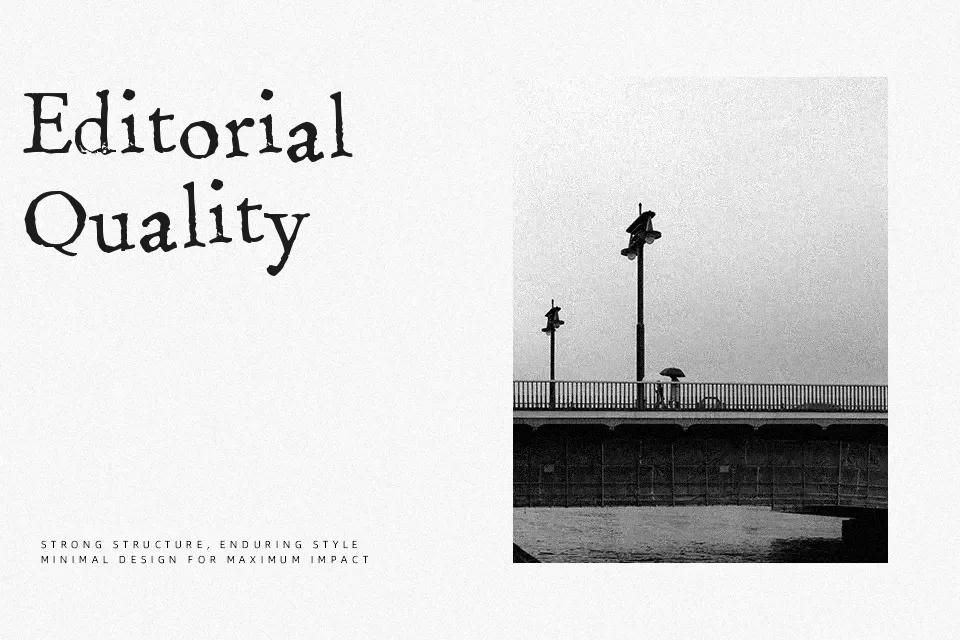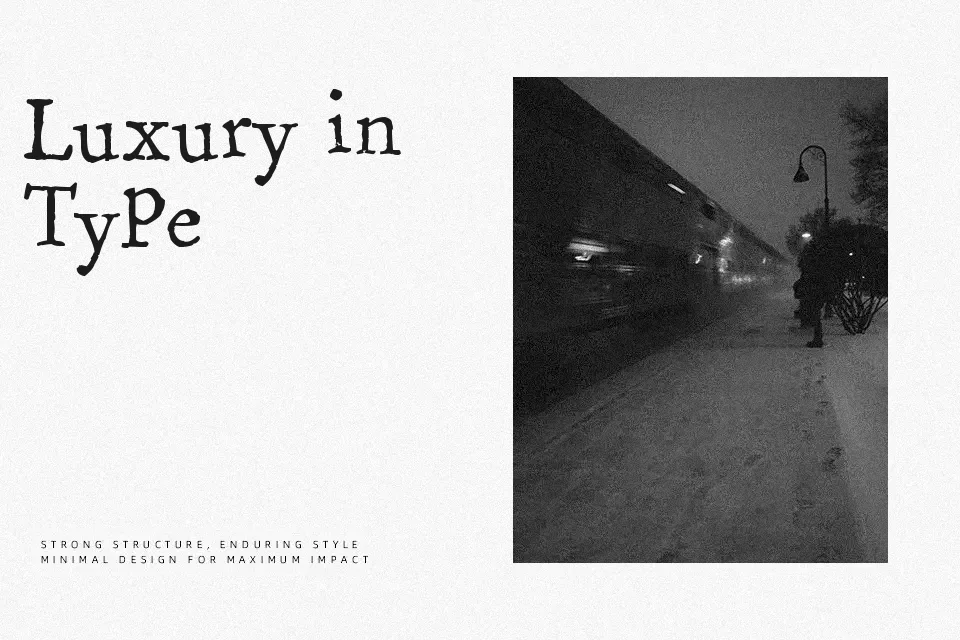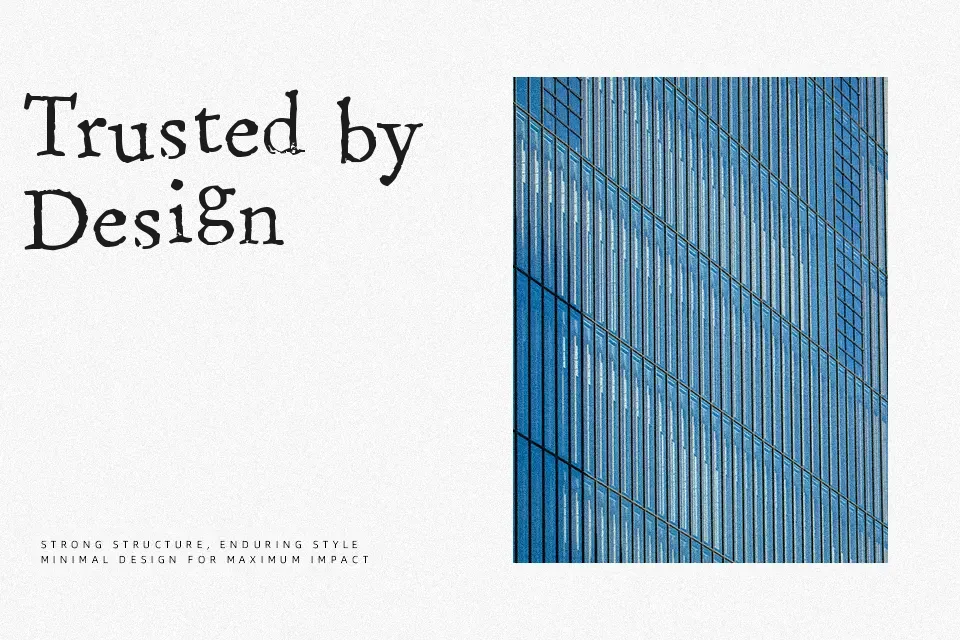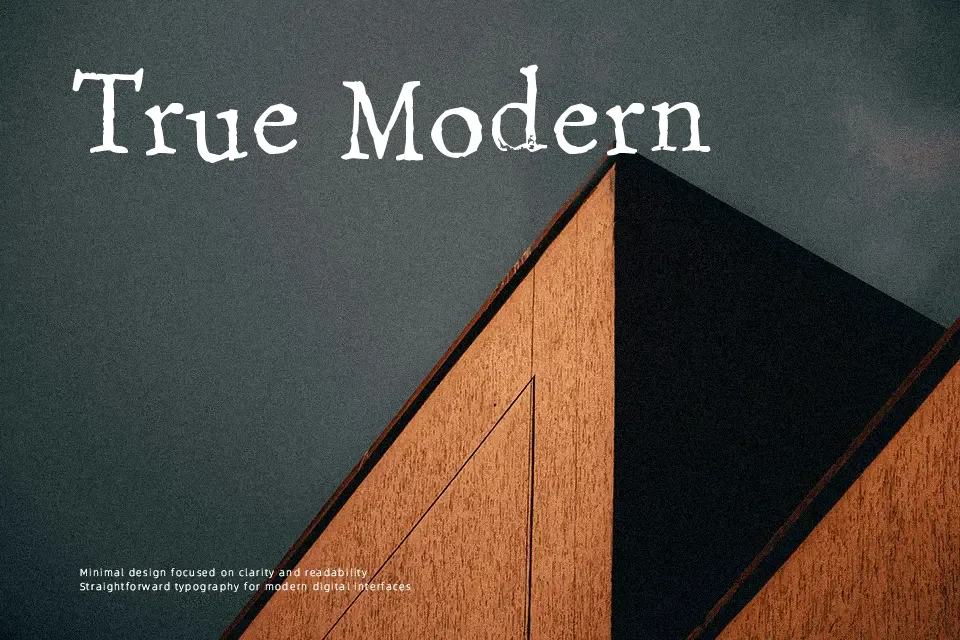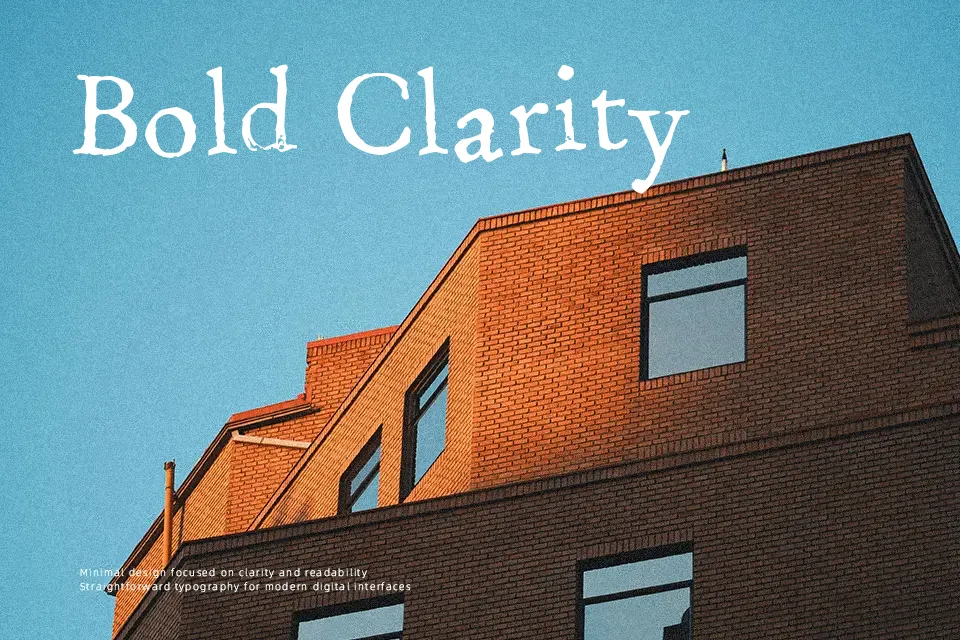
Stamping Nico Font
Stamping Nico Font showcases a rugged mechanical structure inspired by vintage typewriter keys and distressed ink stamps. The letterforms display modest slab serifs with intentionally irregular stroke contours, simulating organic ink bleed and varying strike pressure across glyphs. Proportions remain relatively uniform with open internal counters, while loose character spacing ensures individual letter distinctiveness in short phrases. The typeface excels across display contexts such as craft packaging, thematic event flyers, and retro album covers. However, the heavy textural irregularities create visual noise in continuous body text. The uneven ink edges maintain compelling rustic character when set at medium to large headline sizes.
Best For: vintage product packaging, retro poster headlines, artisanal food labels, music festival flyers
Not Ideal For: continuous body text, mobile interface labels, corporate legal documents, spreadsheet data
Perfect for advertising, branding, and headline, with a artistic and decorative style.